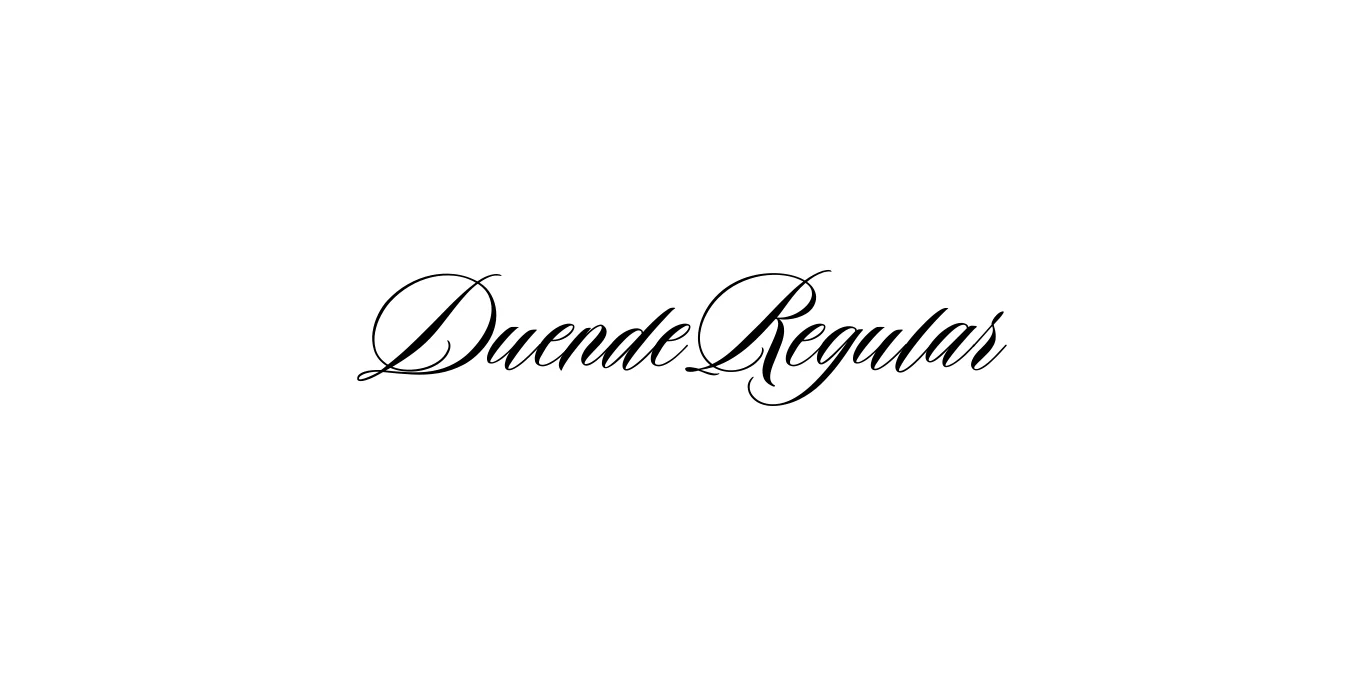
Duende Regular
Designed by Alejandro Paul
| Font Name | Duende |
| Designer | Alejandro Paul |
Duende Regular is a sophisticated script typeface that embodies the concept of 'duende'—a Spanish term representing a heightened state of emotion, expression, and authenticity. Developed by the renowned designer Alejandro Paul, this font captures the rhythmic beauty of manual handwriting while maintaining a professional calligraphic structure. The strokes are fluid and expressive, offering a seamless blend of traditional ink-and-quill aesthetics with modern digital precision.
The typeface features sweeping curves and elegant flourishes that make it an ideal choice for projects requiring a touch of luxury and personal flair. Whether utilized for high-end invitations or decorative branding, Duende Regular stands out for its organic flow and artistic presence, ensuring that every word feels unique and intentional. Its versatile nature allows it to bridge the gap between formal wedding stationery and contemporary editorial design.
Duende Regular Best Uses
Perfect for elegant invitations, RSVP cards, and save-the-date envelopes.
Ideal for high-end logos, premium product packaging, and fashion labels.
Excellent for creating poetic quotes, aesthetic overlays, and influencer graphics.
Beautiful for decorative titles and pull-quotes in lifestyle magazines.